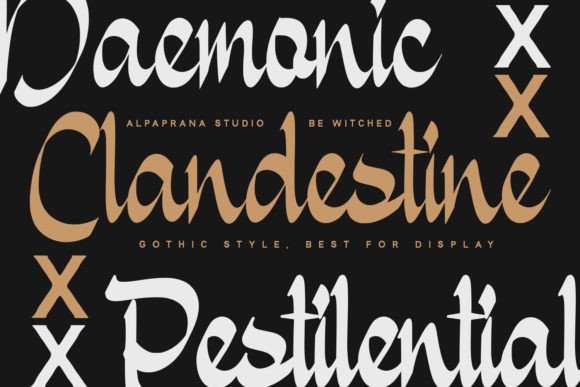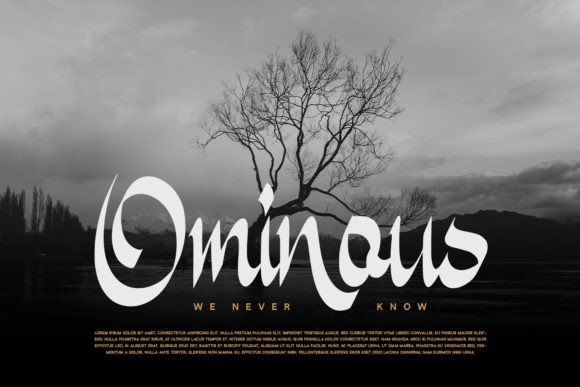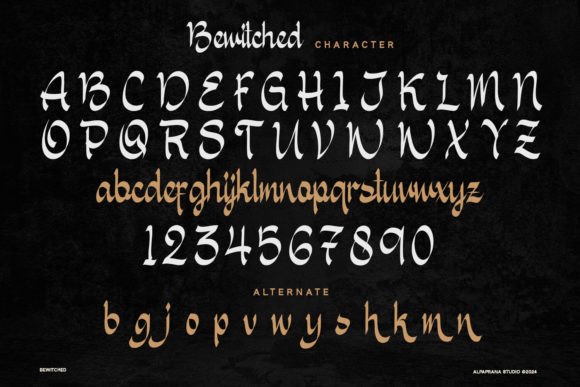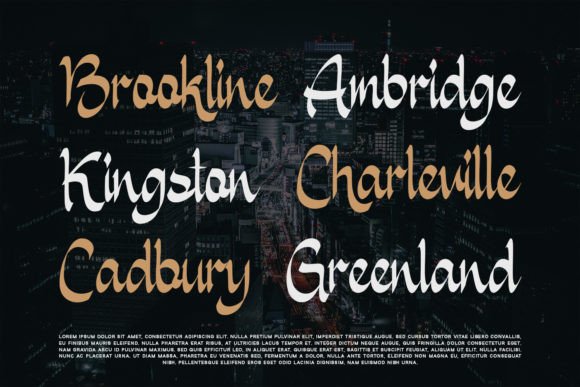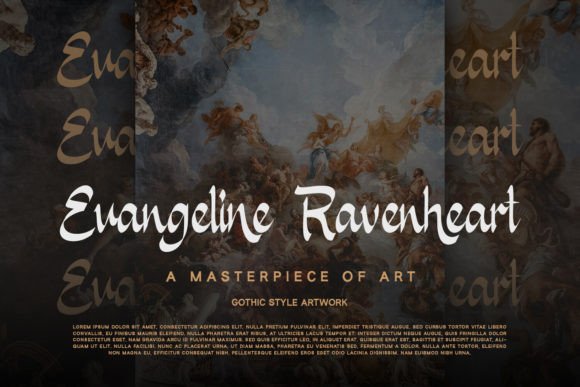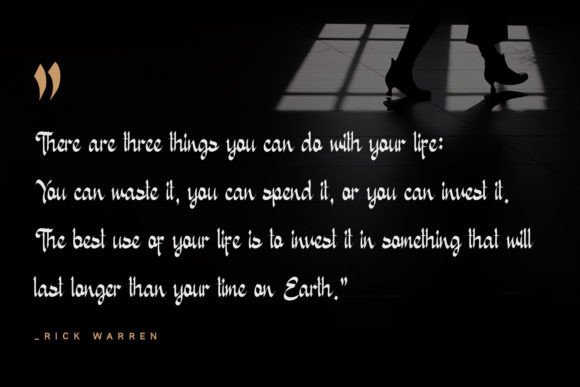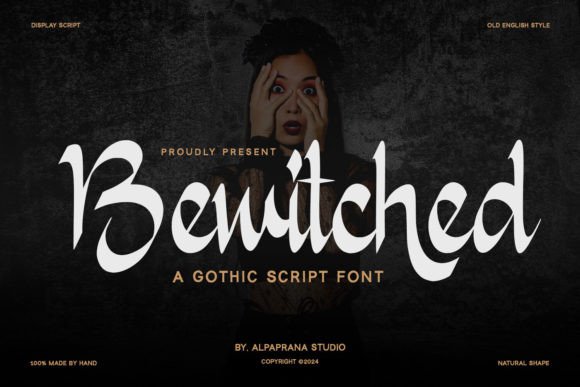
Bewitched Font: A Fun and Casual Handwritten Font for Your Creative Projects
Are you looking for a font that can add a touch of magic to your creative projects? Look no further than the Bewitched font! This fun and casual handwritten font is perfect for designers and crafters who want to add a personal and whimsical touch to their work. In this article, we’ll take a closer look at the Bewitched font, its features, and how you can use it to enhance your creative projects.
What is Bewitched Font?
Bewitched is a fun and casual handwritten font that is designed to add a touch of personality to your creative projects. It’s a carefully crafted font that mimics the look and feel of handwritten text, with a playful and whimsical twist. The font is perfect for a wide range of projects, from digital designs to print materials, and is sure to add a touch of magic to your work.
Features of Bewitched Font
The Bewitched font has a number of features that make it a great choice for designers and crafters. Some of its key features include:
- Handwritten look and feel: The Bewitched font has a carefully crafted handwritten look and feel that adds a personal touch to your projects.
- Fun and casual style: The font has a fun and casual style that’s perfect for creative projects that require a playful touch.
- Easy to read: Despite its playful style, the Bewitched font is easy to read, making it perfect for use in a wide range of projects.
- Versatile: The font is versatile and can be used in a wide range of projects, from digital designs to print materials.
How to Use Bewitched Font in Your Creative Projects
Using the Bewitched font in your creative projects is easy! Here are a few ways you can use this fun and casual font:
- Digital designs: Use the Bewitched font in your digital designs, such as social media graphics, blog posts, and email newsletters.
- Print materials: Use the font in your print materials, such as brochures, flyers, and posters.
- Crafting projects: Use the font in your crafting projects, such as handmade cards, scrapbooking, and DIY gifts.
- Branding and marketing materials: Use the font in your branding and marketing materials, such as logos, business cards, and letterheads.
Tips for Getting the Most Out of Bewitched Font
Here are a few tips for getting the most out of the Bewitched font:
- Experiment with different colors: The Bewitched font looks great in a wide range of colors, so don’t be afraid to experiment and find the perfect color for your project.
- Pair it with other fonts: The Bewitched font pairs well with other fonts, so try pairing it with a bold font for a contrasting look.
- Use it in combination with images: The font looks great in combination with images, so try using it to add a caption or quote to your favorite photo.
In conclusion, the Bewitched font is a fun and casual handwritten font that’s perfect for designers and crafters who want to add a personal and whimsical touch to their creative projects. With its carefully crafted handwritten look and feel, fun and casual style, and versatility, this font is sure to add a touch of magic to your work. So why not give it a try and see the results for yourself?
Bewitched is a fun, casual handwritten font. Add it to your creative projects and enjoy the results!